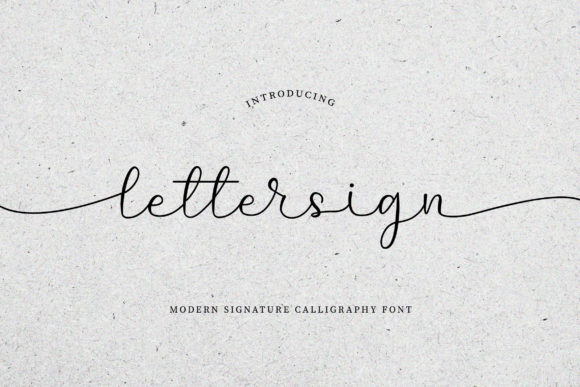
Welcome to the realm of Lettersign Font, a beautiful script font family that exudes charm and romance, captivating your senses with its graceful lines and harmonized letters.
Designed by the talented Juncreative, Lettersign Font is the perfect choice for expressing your heartfelt messages in a uniquely elegant style. This remarkable font features meticulously crafted glyphs and swashes, accessible with ease through PUA encoding.
Your creations will bloom with a captivating allure, whether you're crafting stunning logos, heartfelt invitations, or captivating marketing materials. Lettersign Font's feminine touch will elevate your words, making them resonate with a timeless grace.
Imagine your cover letters, resumes, and professional documents transformed into masterpieces, commanding attention with their polished appearance. Lettersign Font's elegant presence will leave a lasting impression, showcasing your attention to detail and creative flair.
With Lettersign Font, your social media posts will radiate an enchanting charm, capturing the hearts of your audience. Your words will dance across the screen, captivating their attention and leaving a lasting impact.
Step into the world of Lettersign Font and elevate your creative expressions to new heights. Experience the exquisite beauty of this script font, meticulously designed to make your creations shine with grace and elegance.